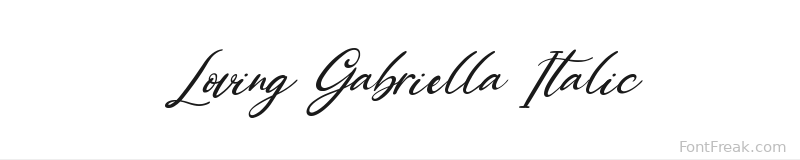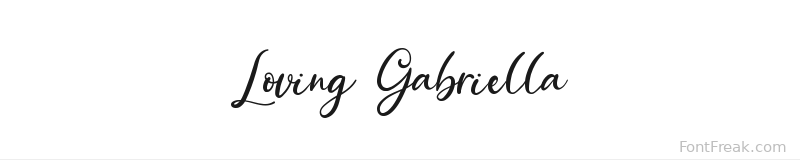
Loving Gabriella
Loving Gabriella Italic
About Loving Gabriella
Loving Gabriella is a beautifully crafted script typeface designed by Kong Font in 2020. This font features an elegant and flowing style, perfectly embodying the essence of handwritten typography. Its delicate strokes and graceful curves create a captivating visual appeal that draws the eye, making it an excellent choice for projects that require a personal touch. The contrast between thick and thin strokes adds a dynamic quality, while the generous spacing between letters ensures readability without sacrificing elegance.
This versatile typeface is ideal for a variety of use cases. Wedding invitations benefit from its romantic flair, providing an enchanting feel to any celebration. Similarly, it shines in greeting cards, where its charming design can convey heartfelt messages. For restaurant menus, Loving Gabriella adds a sophisticated yet approachable vibe, enticing diners with its stylish presentation. It can also enhance branding for small businesses, particularly those in the creative industries, such as florists and boutiques. Content creators will find it perfect for social media graphics, where eye-catching typography can make a significant impact.
What sets Loving Gabriella apart is its charming blend of elegance and approachability. It offers a perfect balance, making it suitable for both formal and casual applications, allowing users to convey emotion and style effortlessly. For those interested, a Loving Gabriella font free download is a fantastic opportunity to incorporate this stunning typeface into your design toolkit.